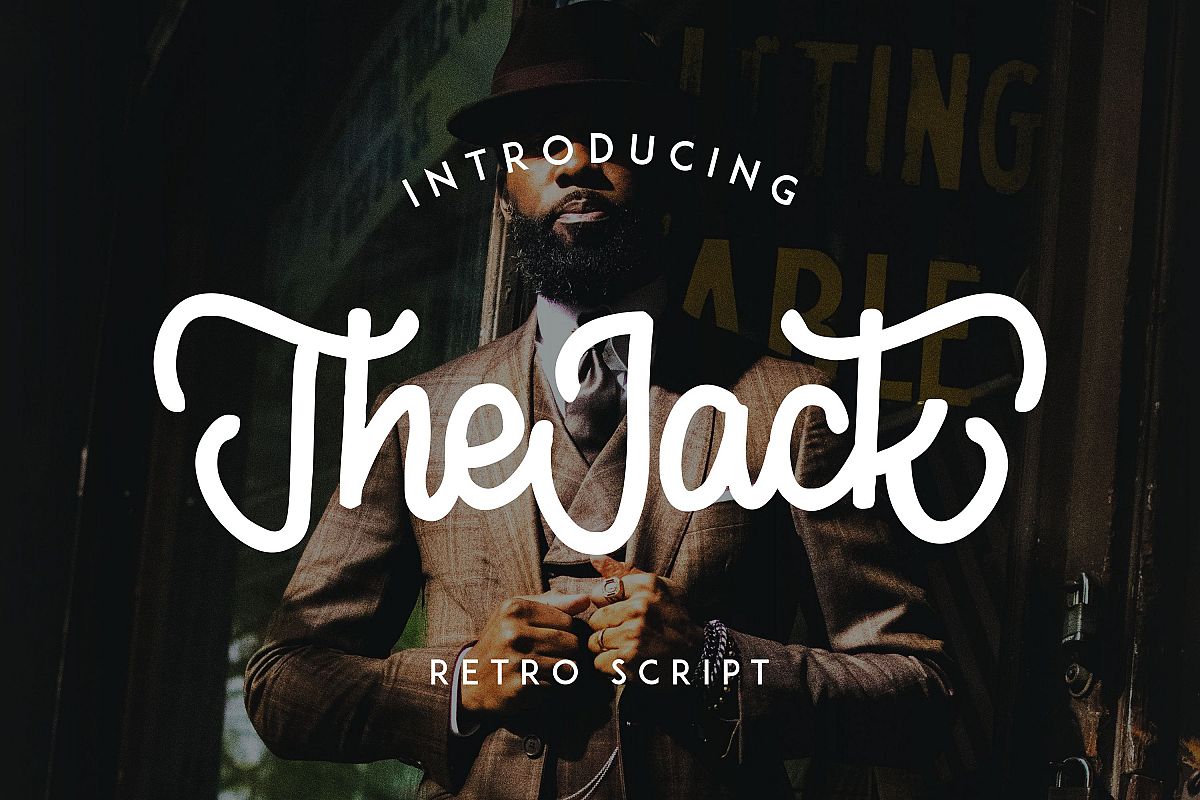
TheJack | Elegant Retro Script
The Jack Font is made by hand with love for traditional sign paintings. All characters have imperfect shapes that give a natural look to the design. This vintage concept has a clean, modern, unique and old-fashioned version. It's easy to work together and perfect for creating traditional style logos, labels, packaging designs, writing for t-shirts and many others.